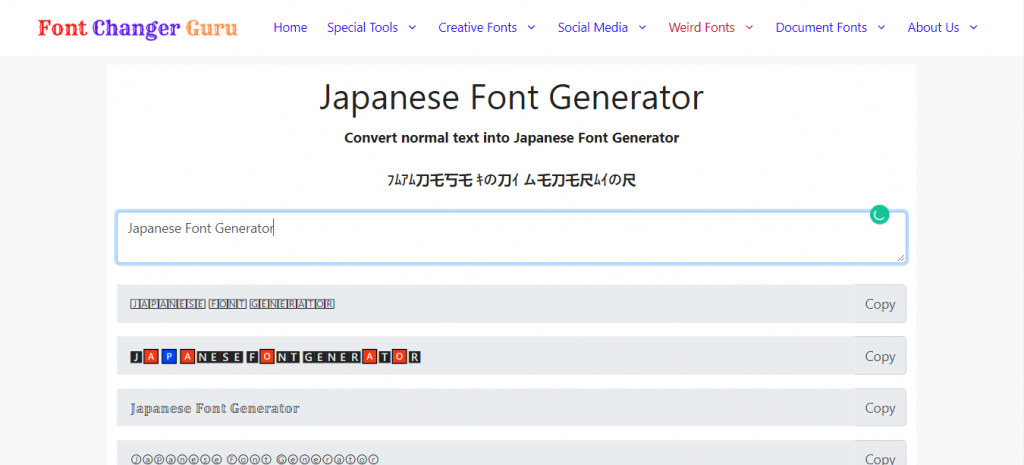
How to Choose the Right Japanese Font Generator for Your Project
If you're looking to incorporate Japanese typography into your design project, a Japanese font generator can be an incredibly useful tool. With the right Japanese font generator, you can create beautiful and authentic Japanese characters without the need for special software or design skills. With the vast number of options available, it can often be challenging to determine where to begin. In this article, we will help navigate you through the process of selecting the appropriate Japanese font generator for your project.
There are various aspects that you should contemplate when choosing a Japanese font generator.
Ease of Use:
One of the crucial aspects to evaluate is the user-friendliness of the online Japanese font generator. You want a tool that is easy to navigate, with a user-friendly interface. It should be straightforward to upload your text or input your desired Japanese characters and quickly see the generated results.
Variety of Fonts:
The right Japanese font generator should offer a variety of fonts to choose from. Look for a tool that provides a range of styles, including traditional and modern Japanese fonts, as well as different weights, such as bold or thin. This will ensure that you can find the perfect font to suit your design needs.
Customization Options:
Some Japanese font generators offer customization options that allow you to tweak the generated fonts to your specific needs. This might include adjusting the font size or line height, adding color, or manipulating the character spacing. If customization is important to you, look for a tool that provides these options.
Japanese Font Changer
Another option to consider is a Japanese font changer tool. These tools allow you to change the font of existing Japanese text, rather than generating new text from scratch. This can be a useful option if you have existing Japanese content that you want to make more visually appealing. A Japanese font changer can help you quickly and easily switch between different fonts to find the one that works best for your project.
Japanese Font Converter
A Japanese font converter is another tool to consider. This type of tool allows you to convert text from one Japanese font to another. This feature can come in handy if you have a particular font in mind that you would like to incorporate but lack the skills to create it from scratch. A Japanese font converter can help you easily transform your text into the desired font style.
Ultimately, the right Japanese font generator for your project will depend on your specific needs and preferences. By taking into account factors like the tool's ease of use, font variety, and customization options, you can narrow down your alternatives and identify the ideal tool for your needs. Whether you choose a Japanese font generator online, a Japanese font changer, or a Japanese font converter, incorporating Japanese typography into your designs can add a unique and beautiful touch.
Conclusion
In conclusion, using a Japanese font generator can help elevate your design projects by creating stunning and authentic Japanese characters. When selecting a tool, consider factors such as ease of use, variety of fonts, and customization options. Additionally, explore other options such as Japanese font changer and converter tools to find the right fit for your specific needs. With the right Japanese font generator, you can take your designs to the next level.